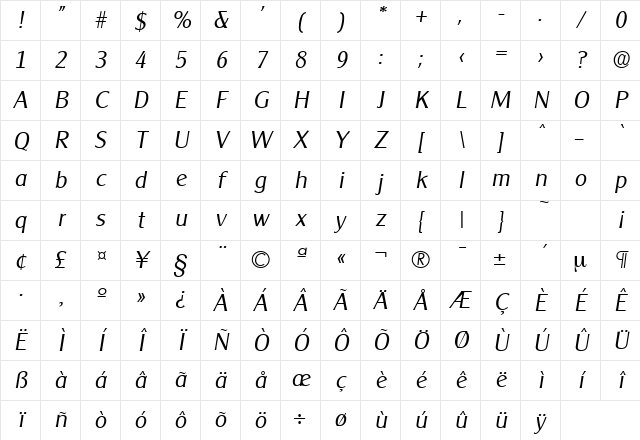
Cleargothic-Serial-Light RegularItalic
Style: RegularItalic
Cleargothic-Serial-Light Family
Design Context for Cleargothic-Serial-Light
Cleargothic-Serial-Light takes a clean, functional approach - its unadorned letterforms prioritise legibility and work reliably across screen and print environments. The slanted form adds forward momentum and visual energy. Its slender proportions lend an understated elegance to any composition.
Font Pairing: Pair Cleargothic-Serial-Light with a medium or bold serif for headlines - the weight contrast creates an elegant, high-end feel.
Pro Tip: Use Cleargothic-Serial-Light with generous tracking and line-height for the most luxurious effect - light sans-serifs reward spacious, considered layouts.